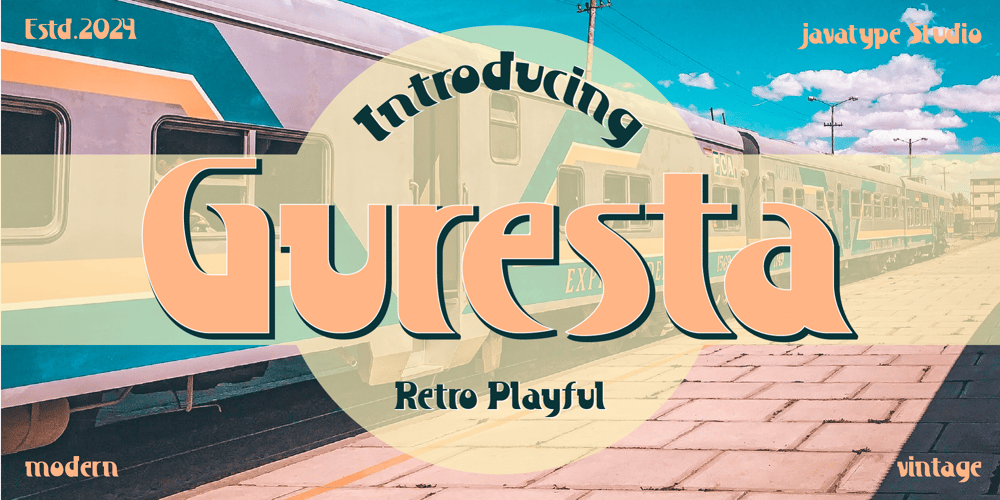
Guresta
Guresta font
Guresta Font Family was designed by Tio Yulianto and published by Javatypestd. Guresta contains 1 styles and family package options. Guresta is a lively retro display font exuding nostalgic charm and adventure. With bold, rounded letterforms and playful curves, it evokes the spirit of vintage signage and road trip memories. Perfect for capturing attention on posters, banners, and designs seeking a retro-inspired aesthetic with a touch of whimsy.